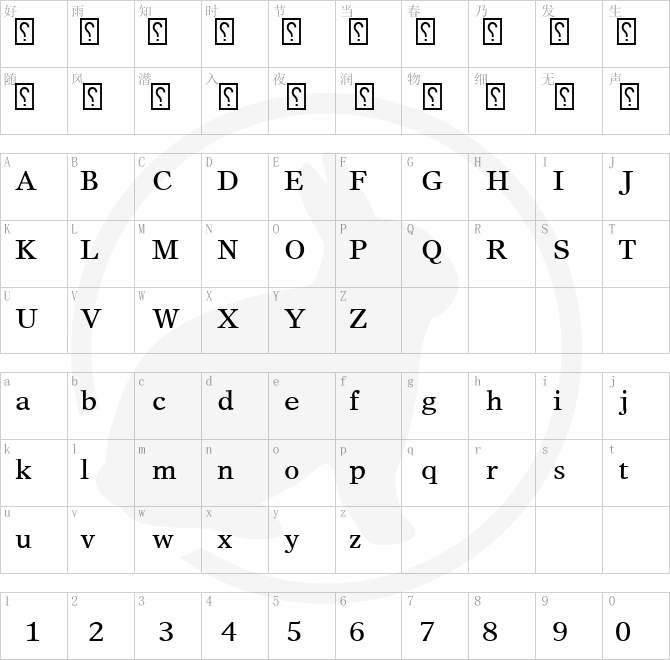
- Font Name:Yakout Linotype Light
Yakout-Linotype-Light.ttf is a very beautiful artistic font, Yakout-Linotype-Light.ttf is widely used in the design and printing of various books and pictures,Yakout-Linotype-Light.ttf has a strong visual impact,Yakout-Linotype-Light.ttf is a commonly used font in newspapers, magazines and books, and is used in posters, e-commerce Poster design, store design, logo design, font design and other fields.Yakout-Linotype-Light.